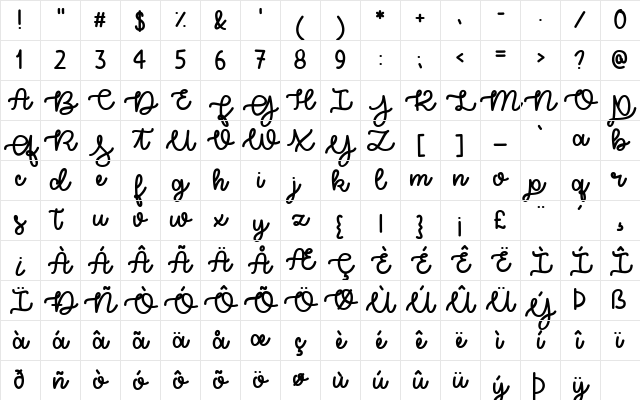
Try Happiness Demo Regular Free Font
Try Happiness Demo Regular
Foundry: Misti's Fonts
Designer: Misti's Fonts
Year: 2016
Complete Try Happiness Demo Regular glyph index. Displaying only characters natively supported by Try Happiness Demo Regular font.
Design Context for Try Happiness Demo
Try Happiness Demo is a composed and adaptable typeface that performs quietly and consistently across a wide range of design contexts.
Who designed the Try Happiness Demo Regular font?